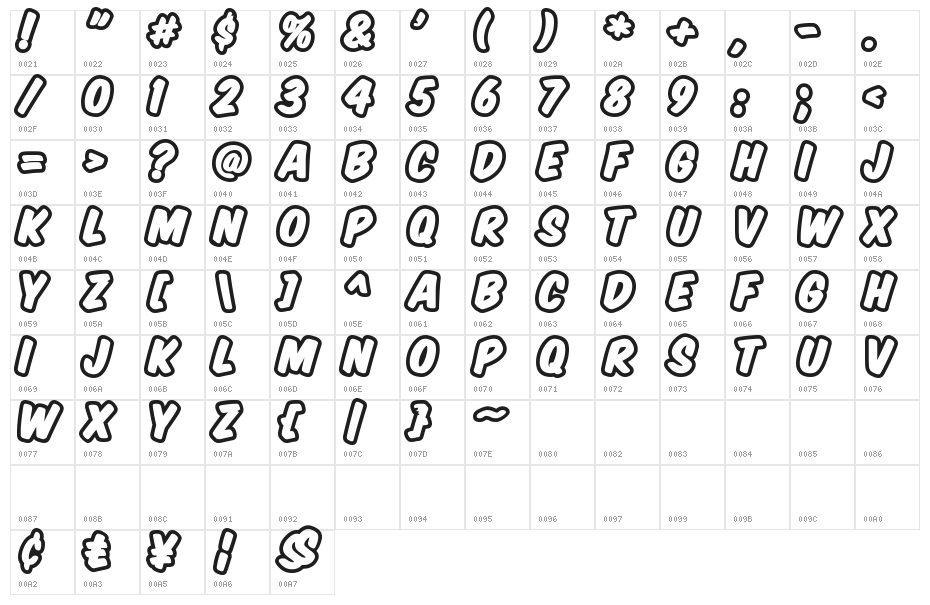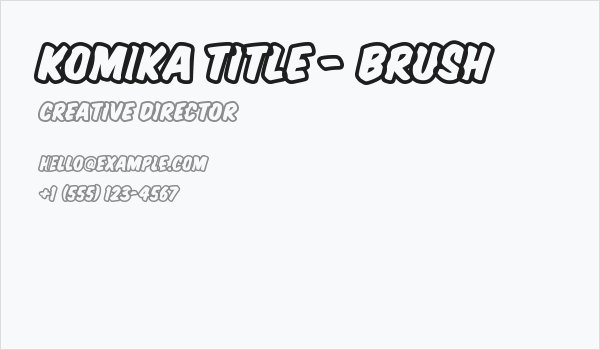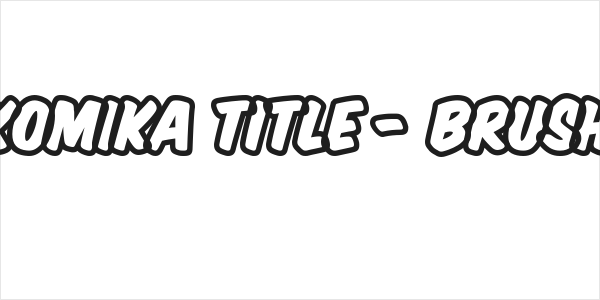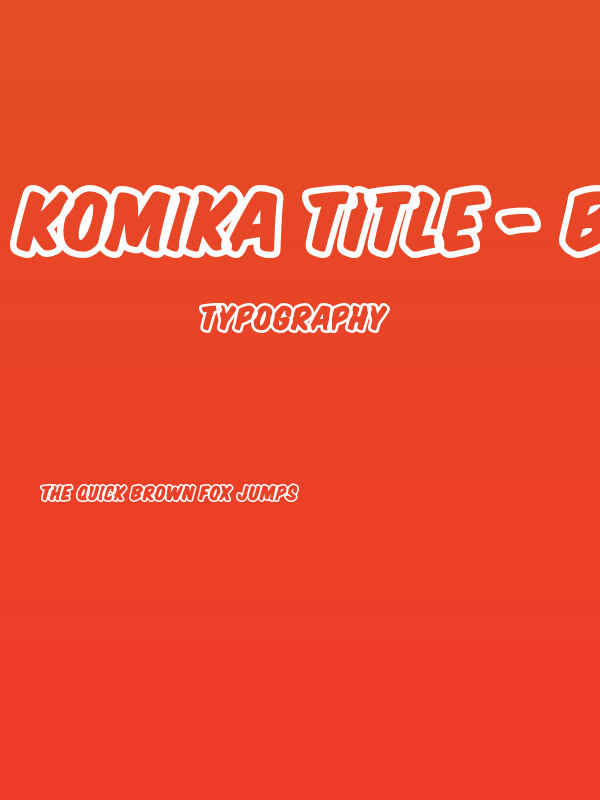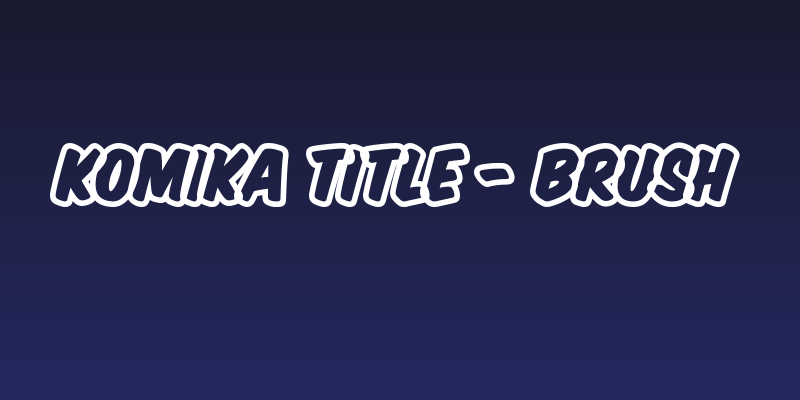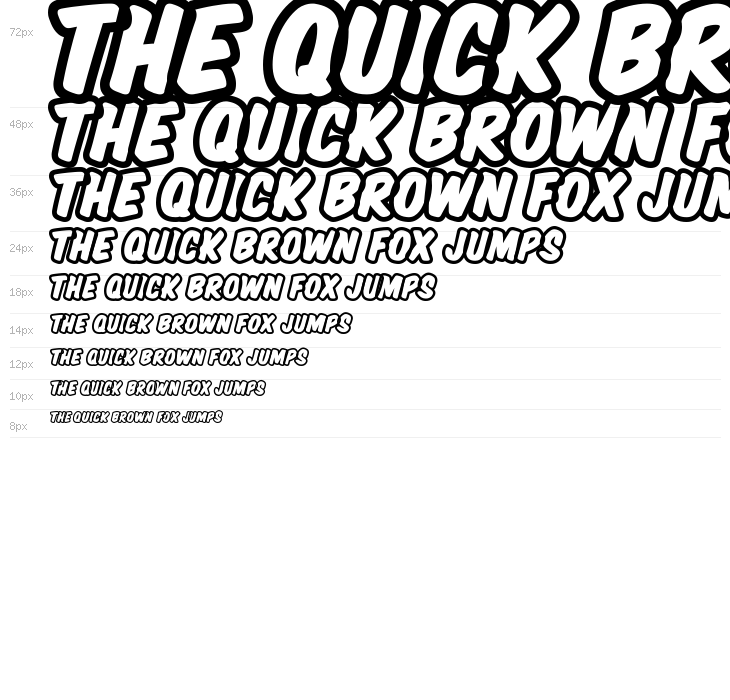
Komika Title - Brush Font
Komika Title - Brush Description
This font features bold, playful characters with a brush-like texture, giving it a lively and dynamic appearance. The letters are slightly slanted, adding to the energetic feel. Each character is outlined with a thick black border, enhancing its visibility and making it stand out. The font maintains a consistent weight throughout, with rounded edges that contribute to its friendly and approachable style. The spacing between characters is relatively tight, which helps maintain a cohesive look. This font is ideal for projects that require a fun and engaging visual element.
| Overall Style | Playful, Energetic |
| Proposed Projects | Ideal for comic book titles, children's book covers, playful branding, and eye-catching posters. |